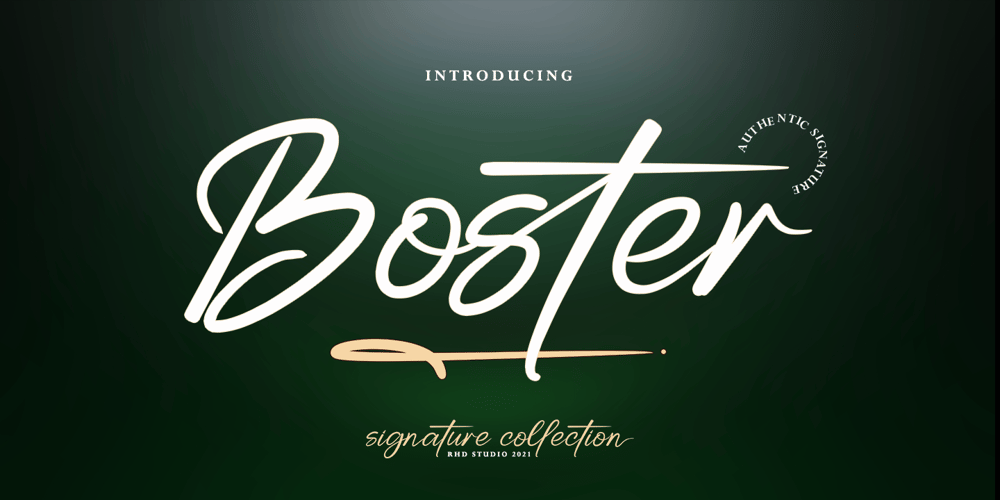
Boster
Boster font
Boster Font Family was designed by Rahmad Rizky and published by Rhd Studio. Boster contains 1 styles and family package options. Boster is a stylish modern calligraphy font with a chic casual style. It’s perfect for branding, wedding invitations and cards, and maybe for red wine labels.The booster includes a beautiful full set of upper and lower case letters, numbers, assorted punctuation marks. All lowercase letters include start and end strokes, providing a realistic handwriting style. What did you get, honey?To use beautiful strokes, you need a program that supports OpenType features such as Adobe Illustrator CS, Adobe Photoshop CC, Adobe Indesign, and Corel Draw. but if your software doesn’t have Glyphs panel, you can install additional font swash file:Thank you and have a nice day, Gulya